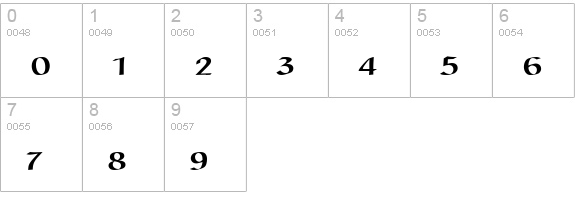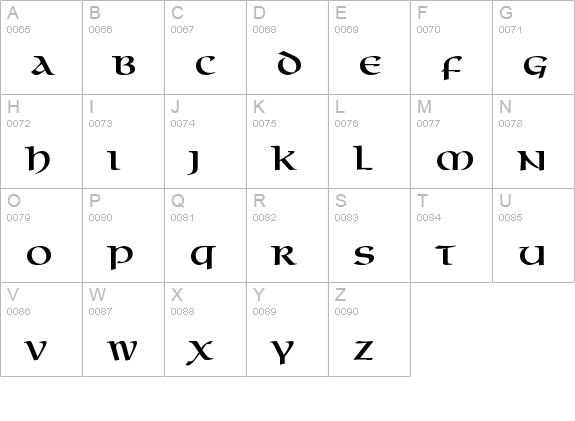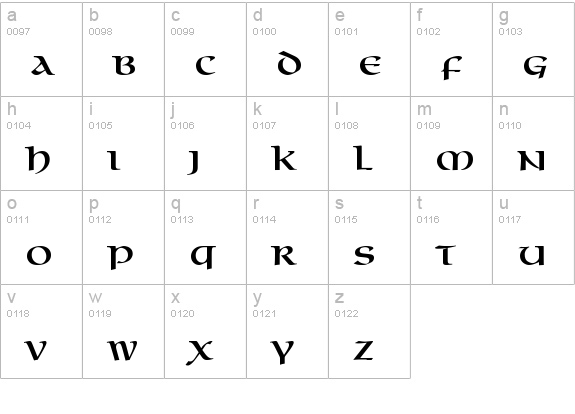
Macedon SSi Font Details
Introducing the mesmerizing beauty of Macedon SSi font, a timeless creation that will captivate and inspire. This exquisite typeface effortlessly blends elegance and modernity, making it the perfect choice for any design project. Macedon SSi font boasts a unique combination of delicate curves and strong lines, resulting in a harmonious balance that is both sophisticated and eye-catching. Its graceful letterforms exude confidence and refinement, lending a touch of class to any text. But what sets Macedon SSi font apart is not just its stunning aesthetics, but also its accessibility. This remarkable font is freely available to download at FontsMarket.com, allowing designers, artists, and enthusiasts alike to experience its beauty without any limitations. Whether you're designing a logo, creating a stunning poster, or crafting a memorable invitation, Macedon SSi font will elevate your work to new heights. Its versatility shines through in every character, effortlessly adapting to various styles and moods. With its extensive character set, Macedon SSi font supports multiple languages, making it an excellent choice for global projects. From elegant headlines to captivating body text, this font will bring your words to life, leaving a lasting impression on your audience. Embrace the power of Macedon SSi font and unlock a world of creative possibilities. Its timeless allure and freely available nature make it a must-have for any designer's toolkit. Discover the magic of this extraordinary font and let it transform your designs into works of art.